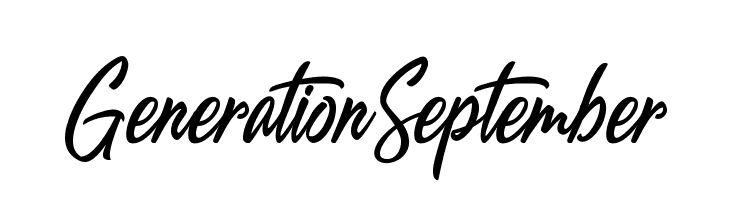
A fluid and elegant script font with dynamic curves and balanced rhythm.
A bold, expressive brush-style font with a lively, handwritten appearance.
A bold, playful script font with a hand-lettered calligraphy style.
An elegant script font with flowing, ornate characters and high contrast strokes.
A lively, handwritten script font with fluid, connected letters.
A sophisticated script font with flowing, interconnected letters and elegant flourishes.
A cursive font with elegant, flowing letters and sophisticated flourishes.
A dynamic and flowing script font with elegant cursive letterforms.
An elegant script font with flowing cursive style and intricate swashes.
An elegant, flowing script font with ornate uppercase and cohesive lowercase characters.